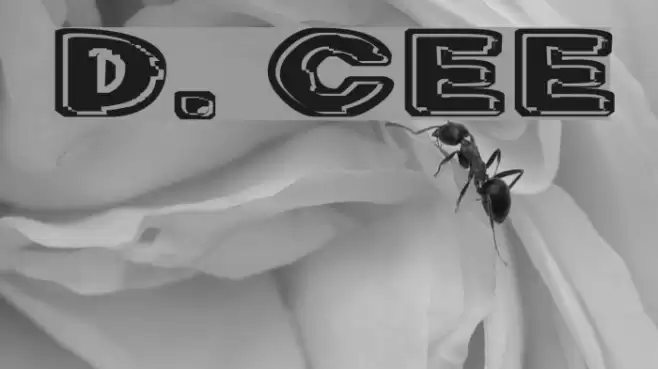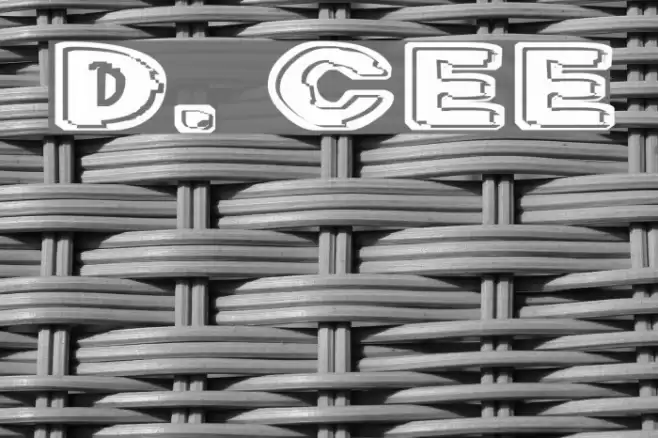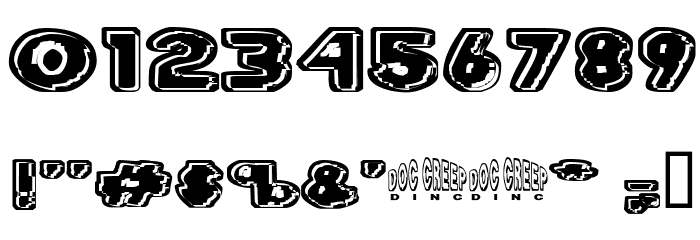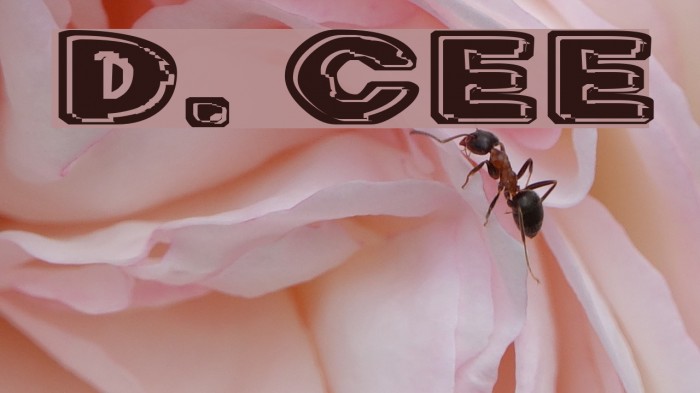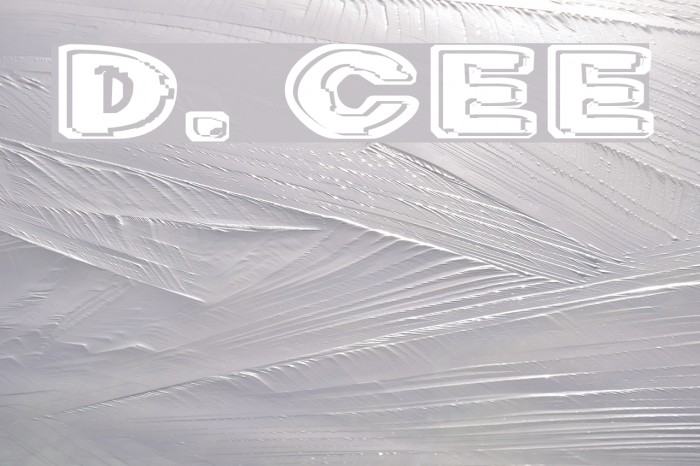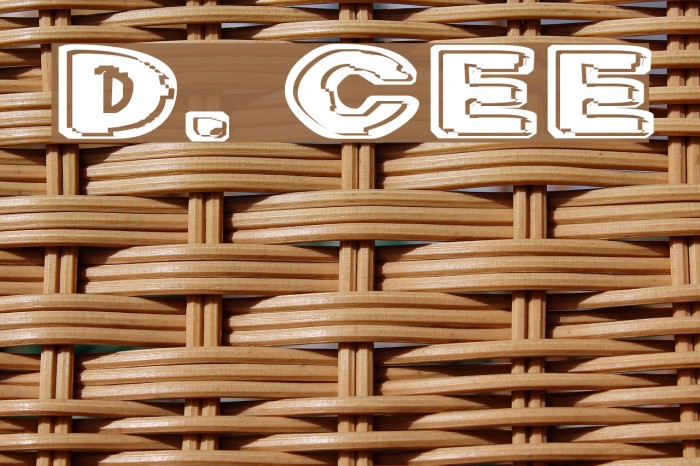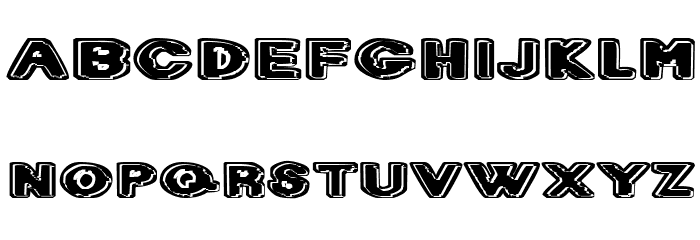
Dr. Creep Font
Dr. Creep Description
This font features a bold, decorative style with a distressed, grunge-like texture. The characters have a thick, blocky appearance with a unique, worn-out effect that gives them a rugged and edgy look. The uppercase and lowercase letters maintain a consistent style, with the uppercase being slightly larger and more pronounced. The numbers and special characters follow the same design, ensuring uniformity across the font. The overall appearance is eye-catching and suitable for projects that require a bold statement.
A bold, decorative font with a distressed, grunge texture from Crazy fonts.